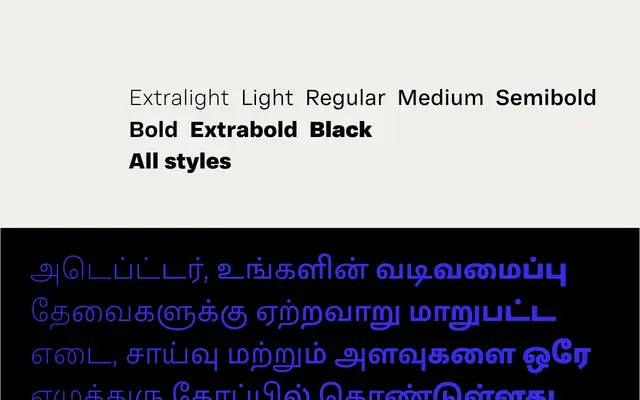
Adapter Tamil
Rosetta · Aadarsh Rajan · 2023
A Tamil companion to the Adapter family, designed by Aadarsh Rajan for text-setting with generous spacing, ink-traps and a modernist graphic sensibility.
Designed by Tamil type specialist Aadarsh Rajan, Adapter Tamil brings the neo-grotesque character of the broader Adapter World collection to the Tamil script. Eight weights from Extralight to Black are available both as static fonts and as a single variable font, with generous spacing to counter the script's inherent rhythmic density and carefully placed ink-traps to handle its complex, intersecting strokes. Closed apertures give it a strong graphic presence, while subtle humanist details keep it comfortable at text sizes.
Adapter Tamil is the Tamil counterpart to the Adapter neo-grotesque family, sharing its modernist, closed-aperture, minimalist construction while incorporating humanist adjustments specific to the Tamil script.